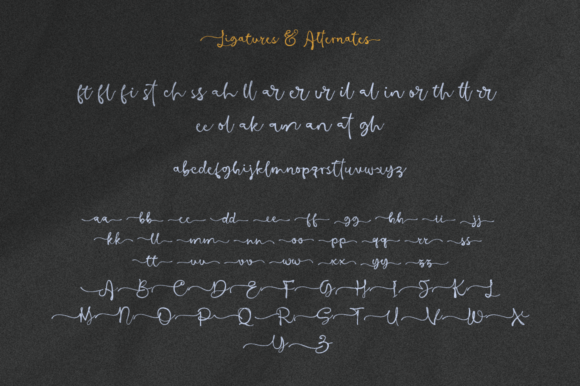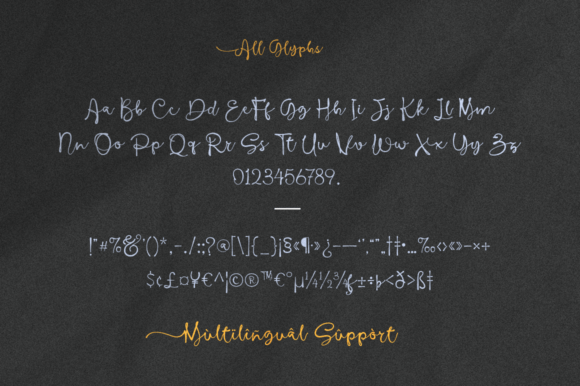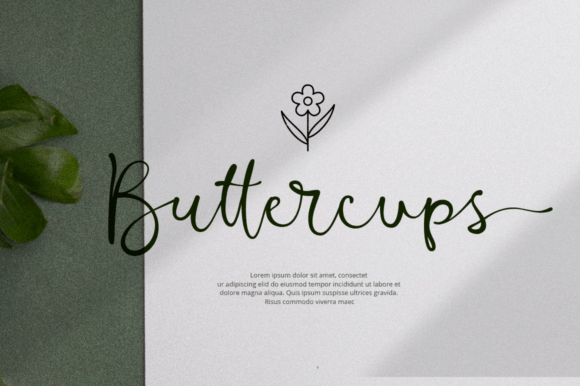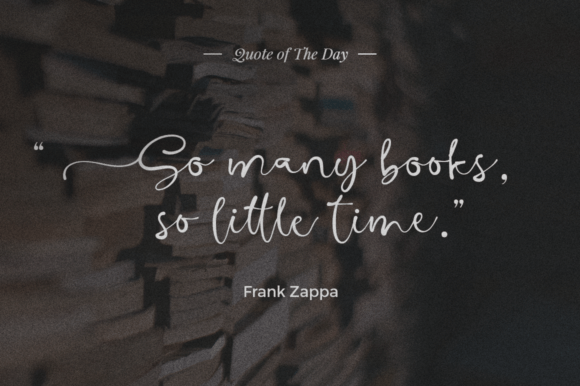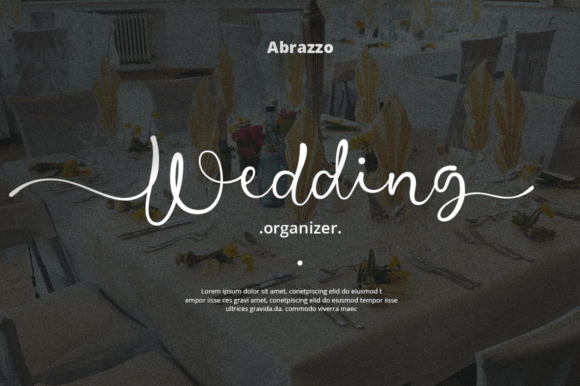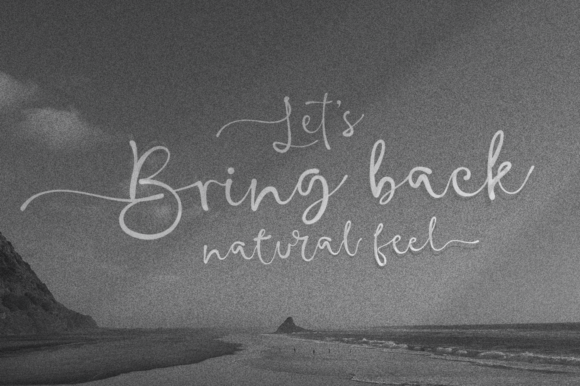
Introducing Barona Script Font: Elevate Your Designs with Timeless Elegance
In the world of typography, few fonts manage to strike a balance between sophistication and playfulness. Barona Script Font is one such gem that effortlessly combines the elegance of traditional calligraphy with a modern twist. This beautiful handwritten brush script font is designed to elevate your branding, digital designs, and craft projects with its unique charm.
The Essence of Barona Script Font
Barona Script exudes timeless elegance with its graceful handwritten brush strokes. Each letter is carefully crafted to showcase a contemporary calligraphy style that is both refined and approachable. The font’s design is characterized by its fluid connections, varying line widths, and subtle imperfections that give it a human touch. This makes Barona Script perfect for designers and crafters looking to add a personal and luxurious feel to their work.
Key Features of Barona Script Font
- Handwritten Brush Strokes: Barona Script’s authentic handwritten feel makes it ideal for creating unique and eye-catching designs.
- Contemporary Calligraphy Style: The font’s modern calligraphy style ensures that your designs look fresh and current.
- Elegant and Playful: Barona Script strikes the perfect balance between sophistication and playfulness, making it versatile for various design applications.
- Seamless Integration: The font’s smooth flow and connections make it perfect for creating cohesive and harmonious designs.
Design Applications for Barona Script Font
Barona Script’s versatility makes it suitable for a wide range of design applications, including:
- Branding: Use Barona Script to create elegant and memorable logos, business cards, and letterheads.
- Digital Designs: Enhance your website headers, social media graphics, and email templates with the font’s modern and sophisticated style.
- Crafting and DIY Projects: Add a personal touch to your craft projects, such as handmade cards, invitations, and journaling.
- Advertising and Marketing: Make your advertisements and marketing materials stand out with Barona Script’s unique and eye-catching style.
Tips for Using Barona Script Font Effectively
To get the most out of Barona Script, consider the following tips:
- Pair with Neutral Fonts: Combine Barona Script with clean and neutral fonts to create visual contrast and hierarchy.
- Experiment with Colors: Play with different color schemes to find the perfect match for your design and brand identity.
- Use for Headlines and Titles: Take advantage of Barona Script’s elegance and use it for headlines, titles, and emphasis text.
- Add Texture and Patterns: Enhance your design with textures and patterns that complement the font’s organic feel.
| Font Name | Barona Script Font |
| Author | afkaristudio |
Barona Script Font is a stunning addition to any designer’s or crafter’s toolkit. Its unique blend of elegance and playfulness makes it perfect for a wide range of design applications. With its timeless charm and versatility, Barona Script is sure to elevate your branding, digital designs, and craft projects to new heights. So why wait? Discover the beauty of Barona Script Font and take your designs to the next level.